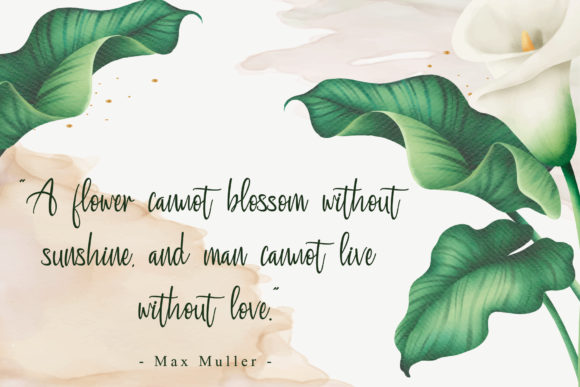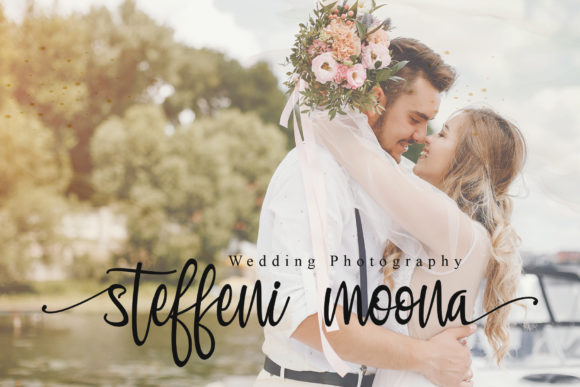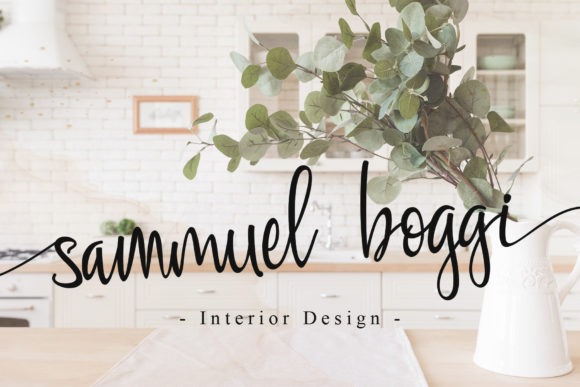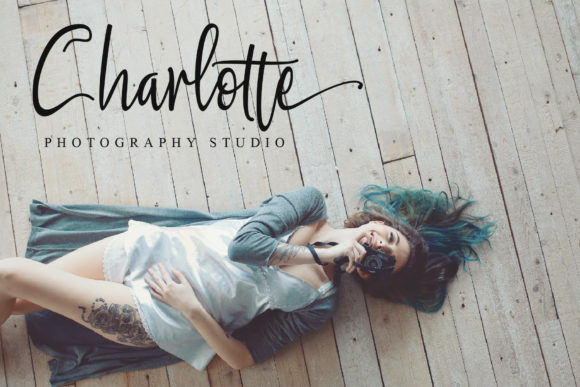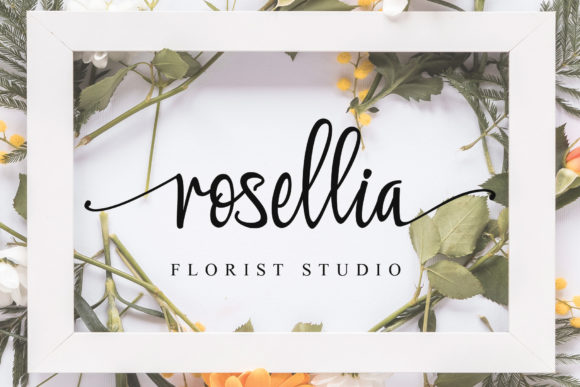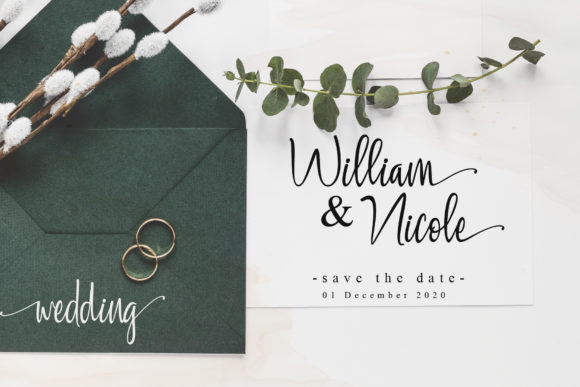
The Magical World of Carlottena Font: A Designer’s Delight
I still remember the time I was working on a wedding invitation project, and my client asked for a font that was elegant, whimsical, and utterly unique. I scoured the internet, tried countless fonts, but nothing seemed to fit the bill. That was until I stumbled upon Carlottena Font. It was like magic! ✨ The flowing lines, the elegant swashes, and the touch of playfulness won my heart and my client’s. In this article, I’ll share my love for Carlottena Font, its features, and how to make the most of it in your design projects.
An Honest Review of Carlottena Font
• ✨ Elegant and whimsical handwritten style
• ✅ High-quality design with intricate details
• 🎨 Highly versatile for various design projects, from branding to wedding designs
• 💻 Works beautifully in digital and print formats
While Carlottena Font is a stunning addition to any design project, there are a few things to keep in mind:
• ⚠️ Some characters may require manual kerning for optimal spacing
• 🤔 Limited availability of certain language scripts
The Backstory of Carlottena Font
Carlottena Font was inspired by the beauty of handwritten letters and the elegance of traditional calligraphy. Its creator aimed to craft a font that would bring a touch of magic to design projects, while maintaining a sense of sophistication and refinement. The result is a truly unique and versatile font that has captured the hearts of designers and crafters alike.
Q: What type of designs is Carlottena Font best suited for?
A: Carlottena Font is highly versatile and can be used for a wide range of design projects, including branding, headings, wedding designs, invitations, signatures, logos, labels, and more!
Q: Does Carlottena Font support OpenType features?
A: Yes, Carlottena Font supports OpenType features, including swashes, stylistic alternates, and glyphs.